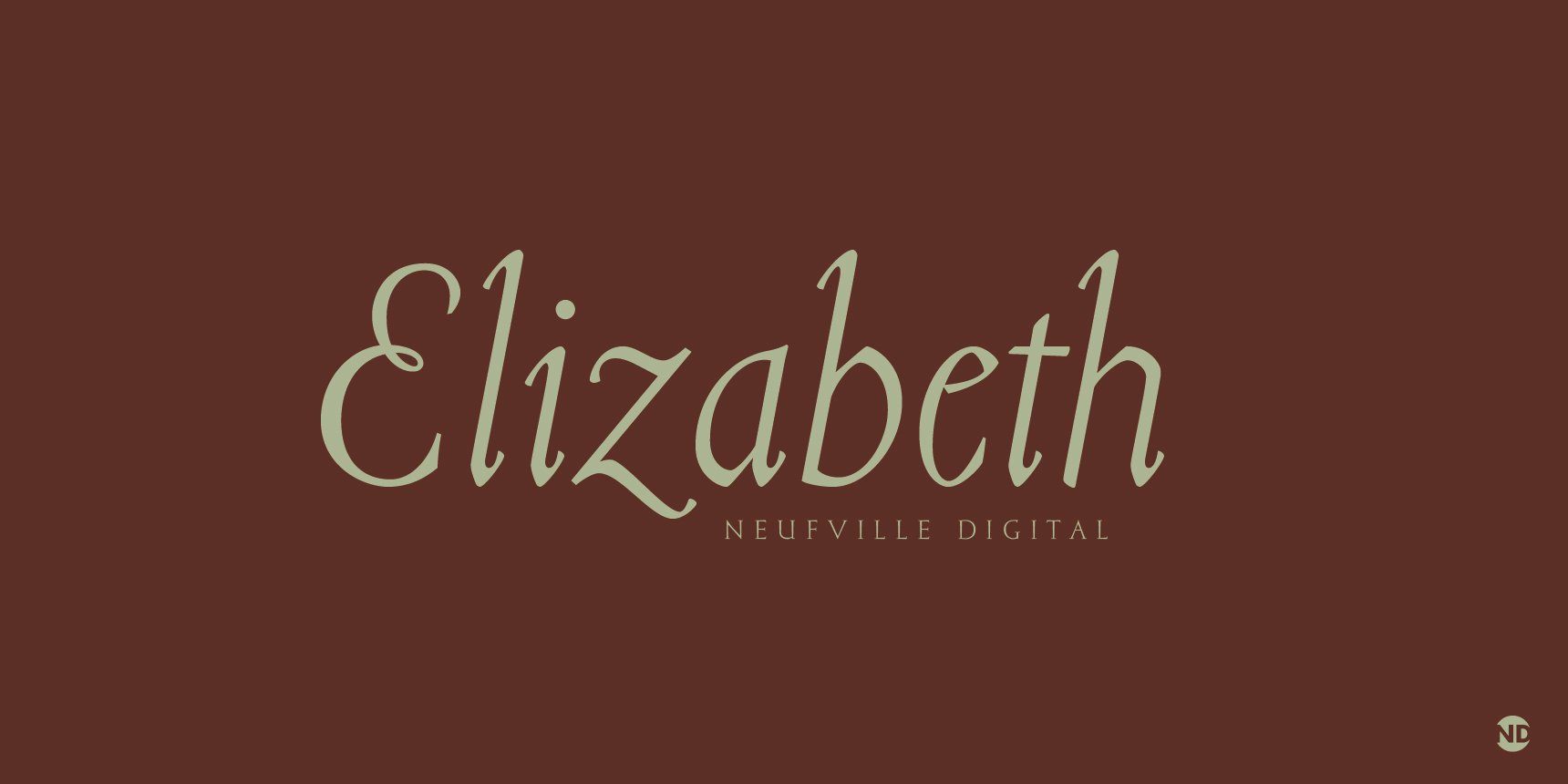
Elizabeth ND Font is ideal for royal wedding invitations, aristocratic event stationery, luxury jewelry branding, prestigious award ceremonies, elegant fine dining menus, exclusive boutique signage, regal cultural exhibitions, and distinguished diplomatic communications.
This font is exciting because it captures the timeless grace and sovereign elegance of royal tradition with dignified letterforms that convey nobility, refinement, and centuries of aristocratic heritage. The Elizabeth ND Font embodies the majesty of royal courts and ceremonial grandeur, transforming ordinary text into regal proclamations that command respect and inspire reverence for tradition and excellence.
The Elizabeth ND Font family includes royal variations such as Regular, Bold, Light, Italic, Crown, Condensed, Extended, and Ceremonial versions, providing luxury designers with comprehensive tools to create authentic royal typography that honors aristocratic traditions and ceremonial dignity across all prestigious applications.
Command royal respect with Elizabeth ND Font Free Download that brings sovereign elegance to every prestigious design project. This regally inspired typeface combines aristocratic heritage with contemporary functionality, making it perfect for luxury brands, ceremonial institutions, and organizations requiring the highest levels of dignity and prestige. The font's noble character design ensures your message conveys authority and refinement while maintaining perfect readability across all formal applications. Whether you're developing luxury brand identities, creating ceremonial materials, or designing communications for prestigious events, Elizabeth ND Font delivers the royal typography that resonates with audiences who appreciate tradition, excellence, and the timeless appeal of aristocratic elegance. Its versatile design works beautifully across digital and print media while preserving the sovereign dignity that makes royal communications feel genuinely majestic and worthy of the respect that comes from centuries of noble tradition and unwavering commitment to excellence.